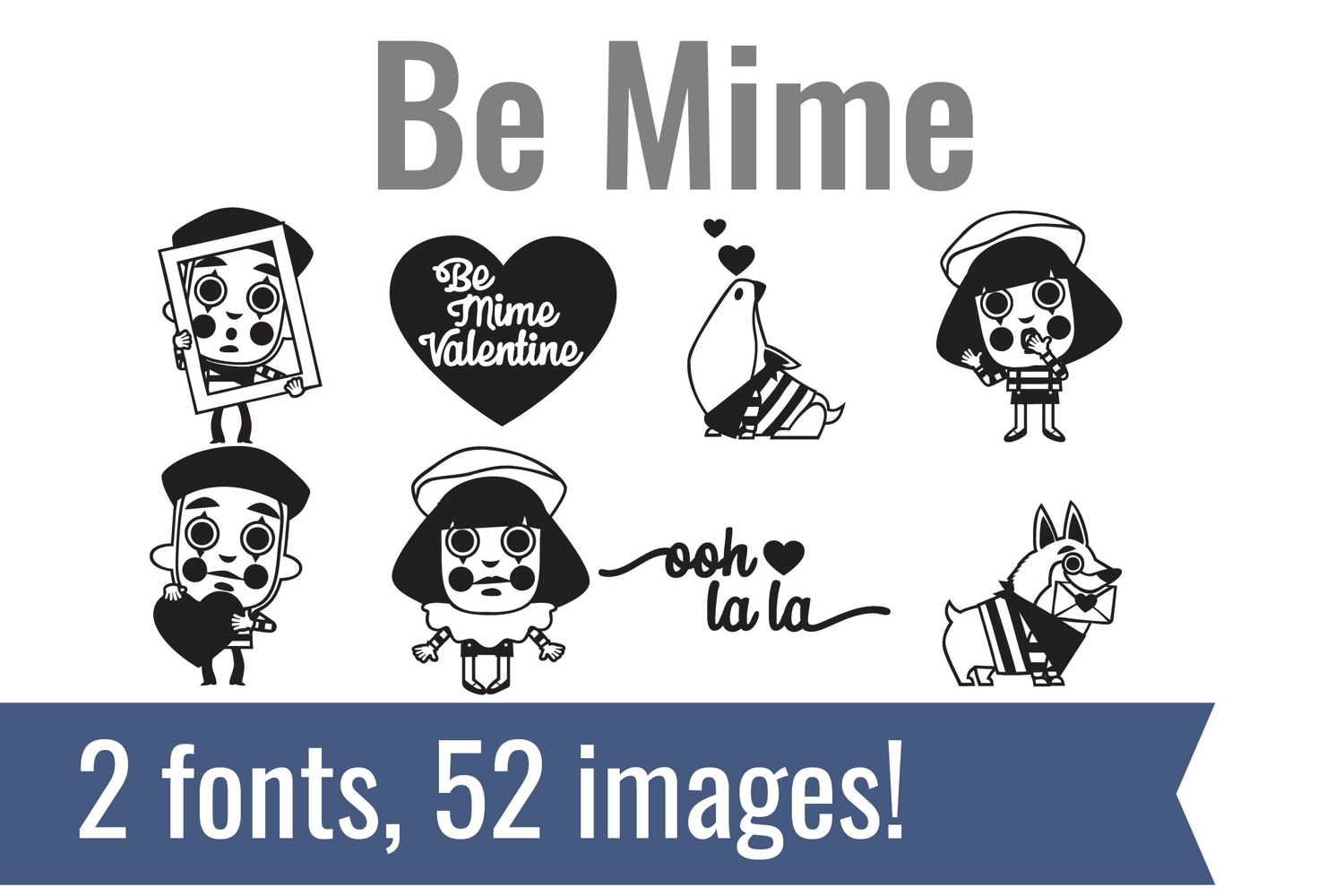
Be Mime Dingbats
Unlock endless creativity with two perfectly coordinated fonts! There are two dingbat fonts in this bundle, featuring the cutest mimes, clowns, and pun Valentine imagery!
Tired of spending hours searching for the perfect icons and graphics? Our dingbat fonts put dozens of cohesive, scalable designs at your fingertips. Simply install the font and type a letter to produce a pre-made image. From charming seasonal icons for holiday cards to intricate frames for your invitations, these fonts let you create stunning designs for vinyl cutting, paper crafts, planners, and more.